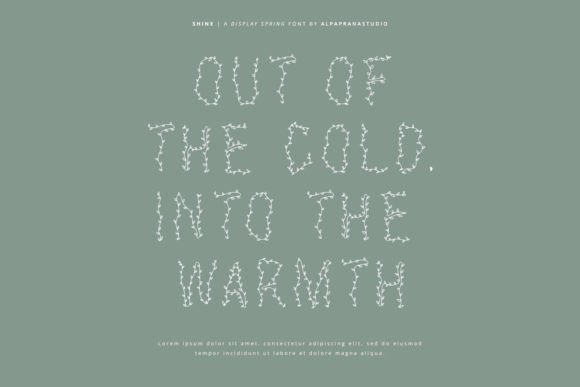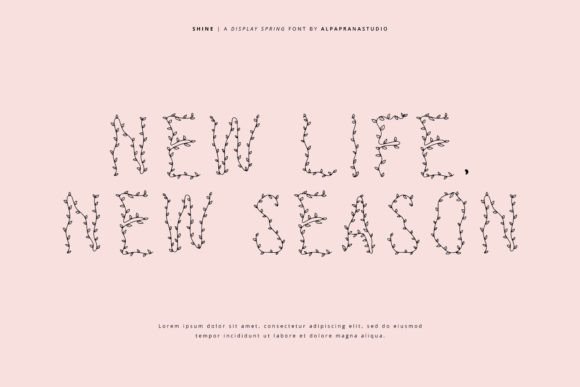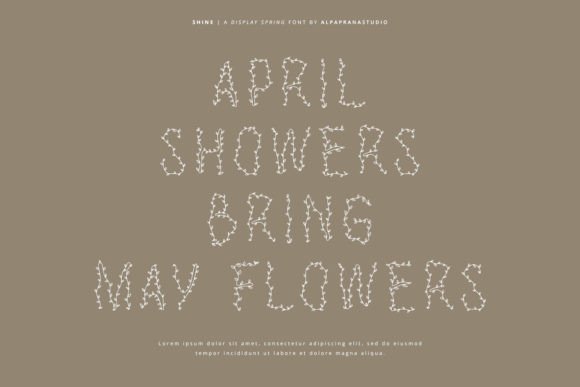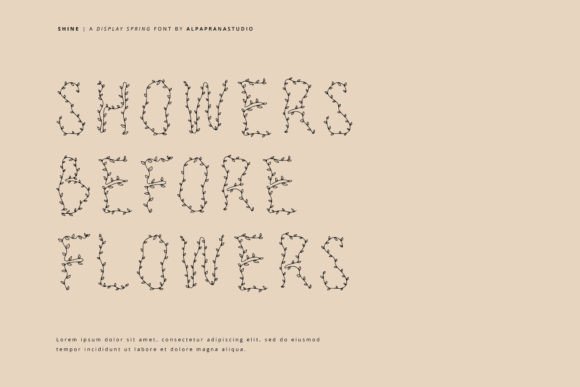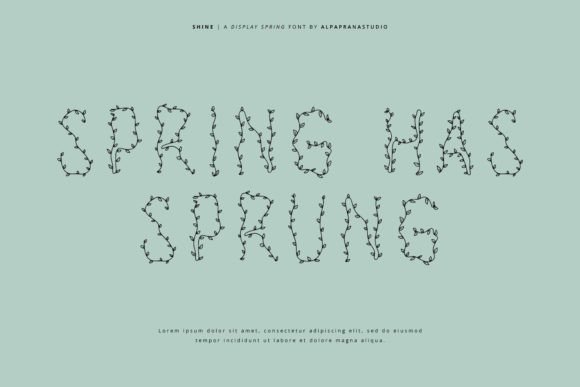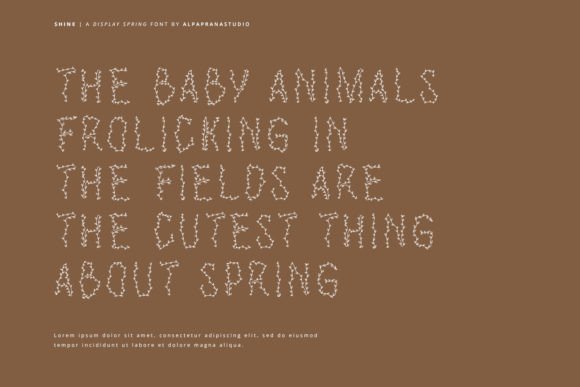
Introduction to Shine Font
As designers, we’ve all been there – staring at a blank page, struggling to find the perfect font to bring our creative project to life. And then, like a ray of sunshine, you stumble upon the perfect font that makes your design sparkle. For me, that font is the Shine Font, a delightful decorative display font that exudes modern charm and whimsy.
Whether you’re working on a branding project, creating a logo, or designing a poster, the Shine Font is a valuable addition to your design resource arsenal. Its high-quality design and transparent background make it perfect for any creative project, from clothing and packaging to book covers and photography.
Key Features of Shine Font
- High-quality design resource for creative projects, suitable for various applications.
- Comes with a transparent background, allowing for easy integration with different design elements.
- Available in a single size, making it easy to use across different design projects.
- Unique characteristics include its modern and sleek design, making it perfect for creating eye-catching visuals.
Honest Review: Shine Font
As a designer, I’m always on the lookout for high-quality design resources to elevate my creative projects. Recently, I had the chance to try out the Shine Font, and I’m excited to share my honest review with you.
- Unique and modern aesthetic: The Shine Font boasts a sleek, modern design that’s perfect for contemporary projects.
- Transparent background: The font’s transparent background makes it easy to use with images and other design elements.
- Limited font styles: The Shine Font is available in a single weight, which might limit its versatility for certain design projects.
Overall, I think the Shine Font is a solid addition to any designer’s toolkit. While it may have some limitations, its modern aesthetic and free download make it a great option for creative projects. I’d definitely recommend giving it a try!
Tips for Getting the Most Out of Shine Font
1. Experiment with different font sizes and styles to find the perfect look for your design.
2. Combine Shine Font with other design elements, such as images and shapes, to create a visually appealing design.
3. Use Shine Font to create a consistent brand identity across all your marketing materials.
Common Use Cases for Shine Font
1. Business cards and brochures.
2. Social media graphics and advertisements.
3. Presentation slides and reports.
4. Website headers and footers.
Alternatives to Shine Font
Open Sans is a high-quality, sans-serif font ideal for creative projects requiring a clean and modern look. It’s a free download and can be used for both personal and commercial projects. When to use: For websites, mobile apps, and any design project requiring a neutral yet elegant font. Compared to Shine Font: Open Sans has a more subtle shine effect, making it suitable for projects where a more understated approach is desired.
Lato is a free, open-source font designed for use in digital products. It features a transparent background, making it perfect for overlaying text on images. When to use: For creative projects where a modern and sleek font is required. Compared to Shine Font: Lato has a more sophisticated and elegant look, making it a great alternative for high-end design projects.